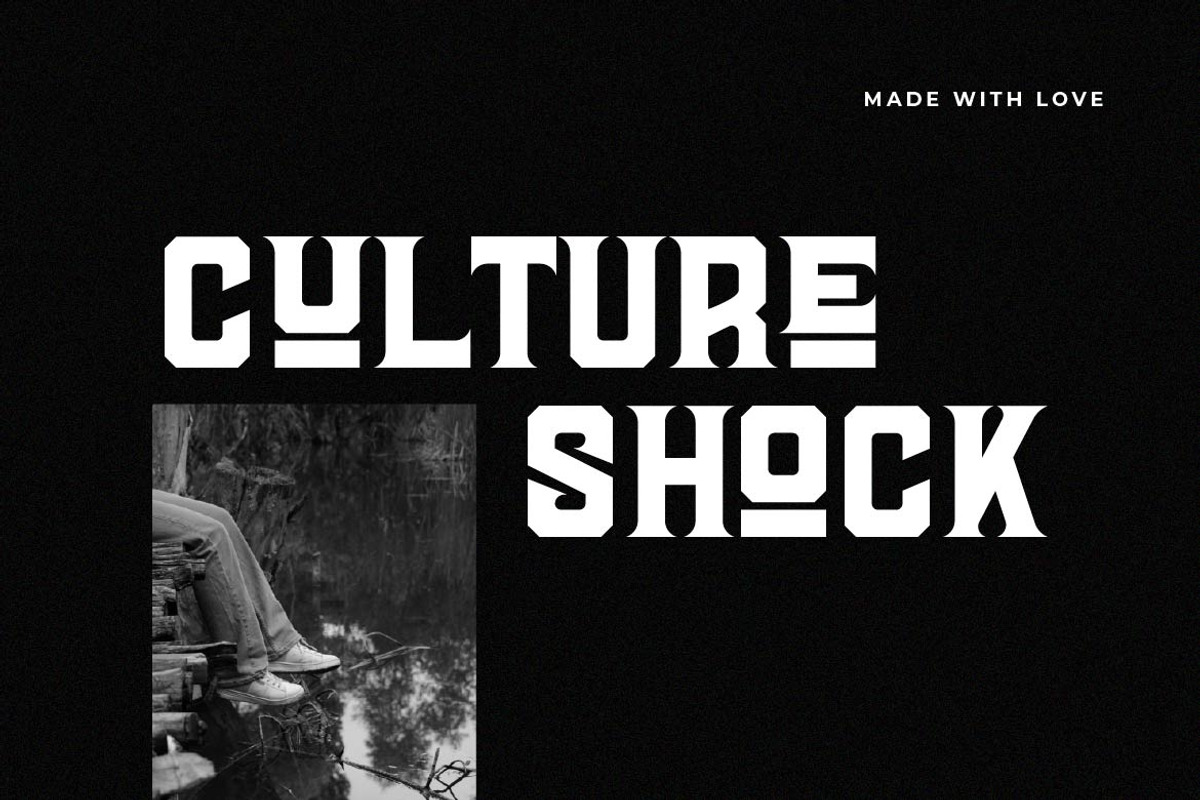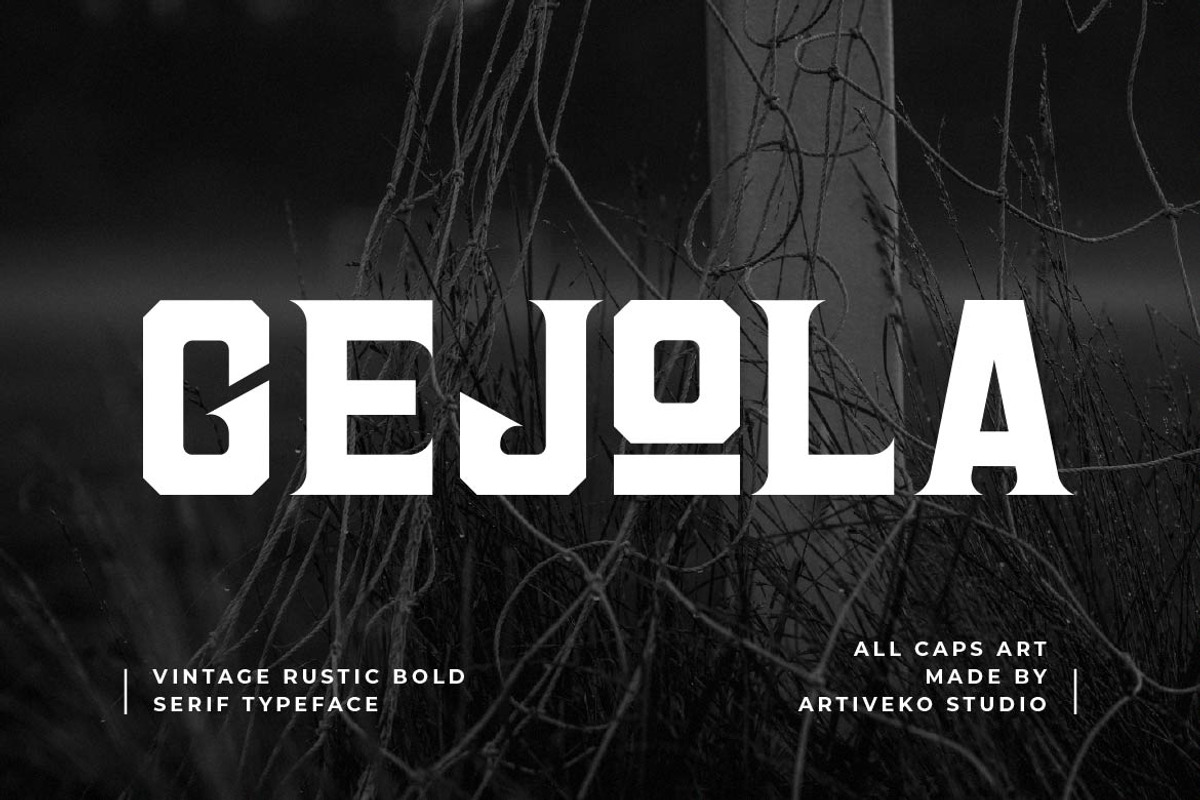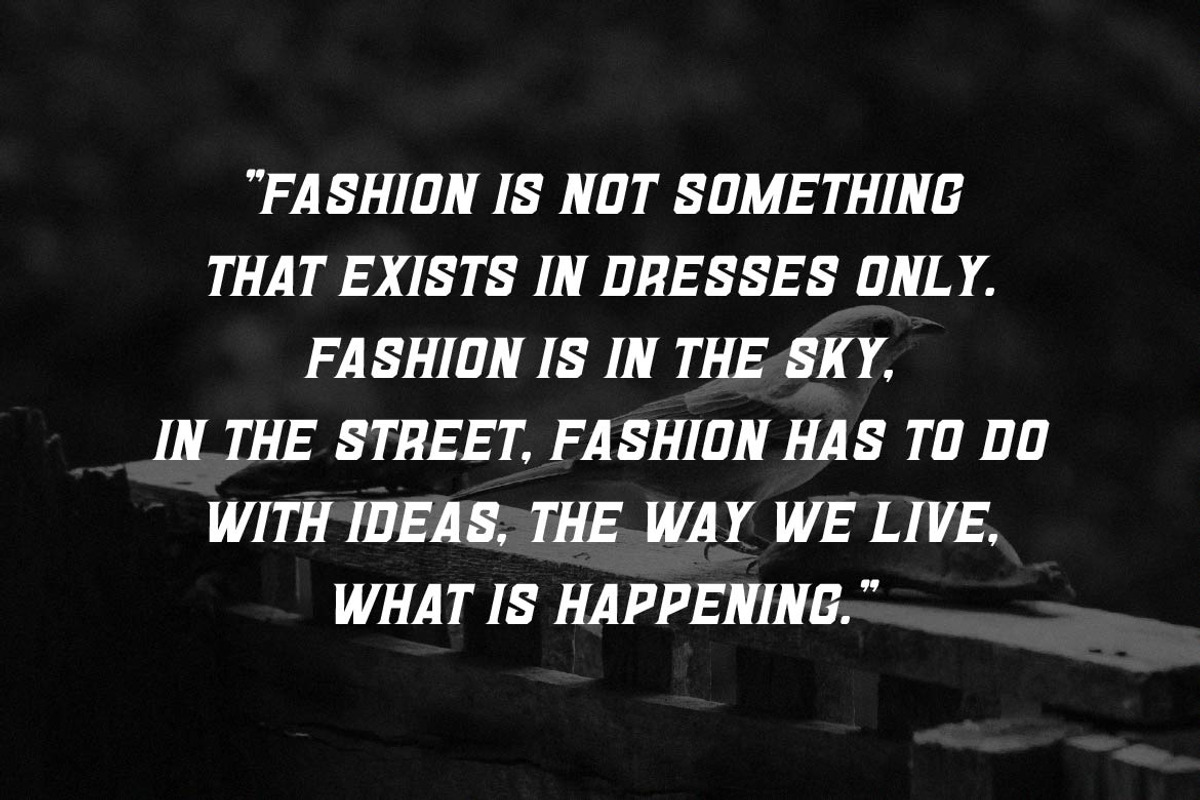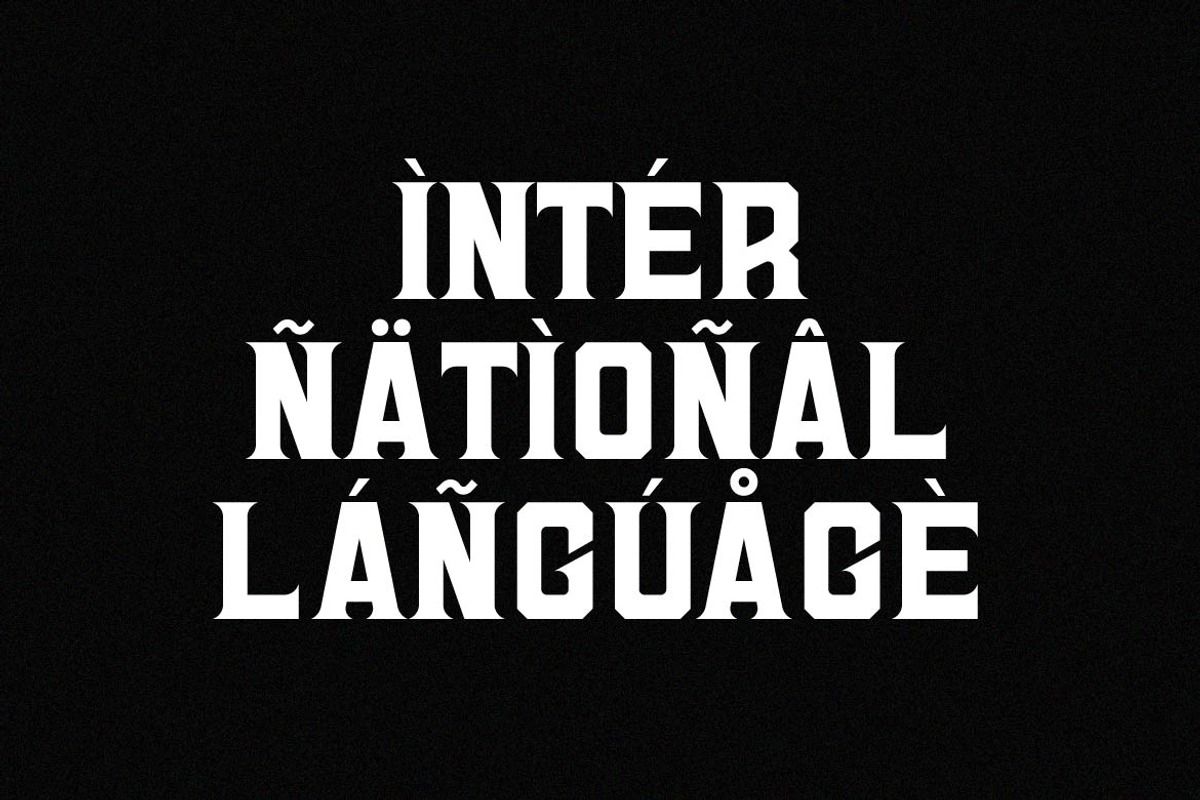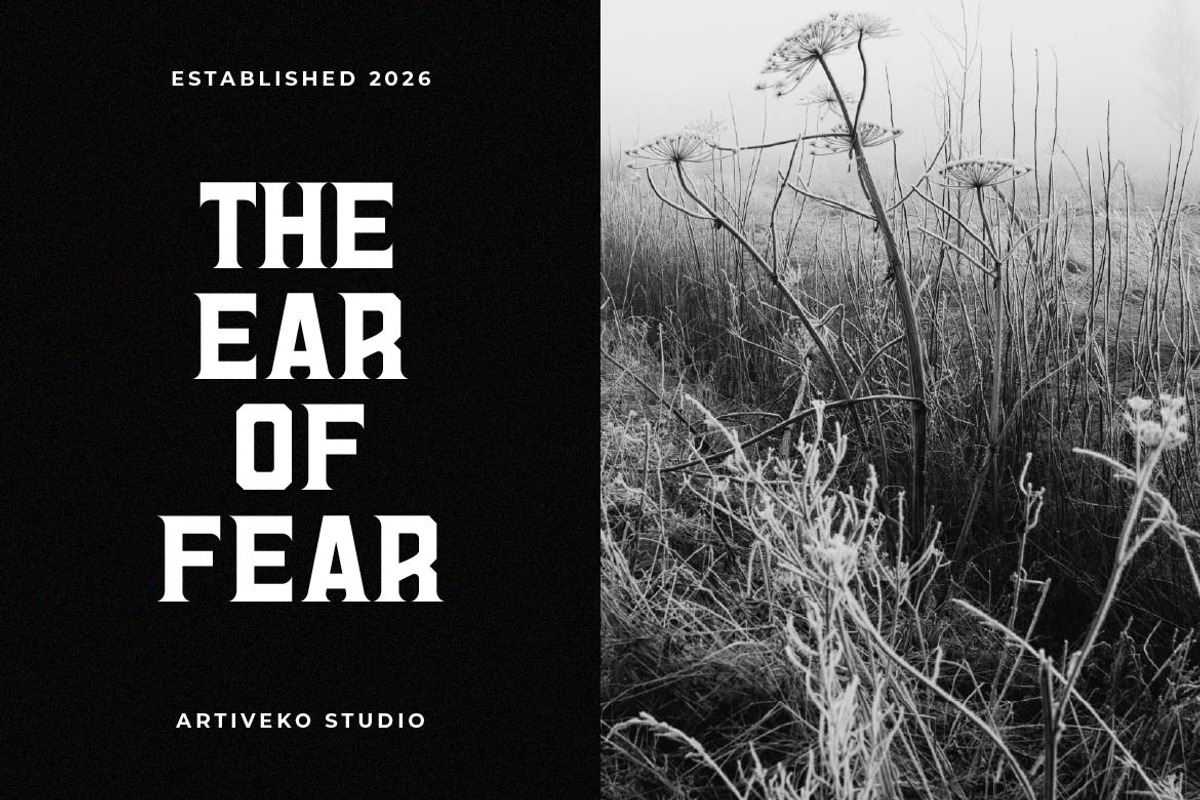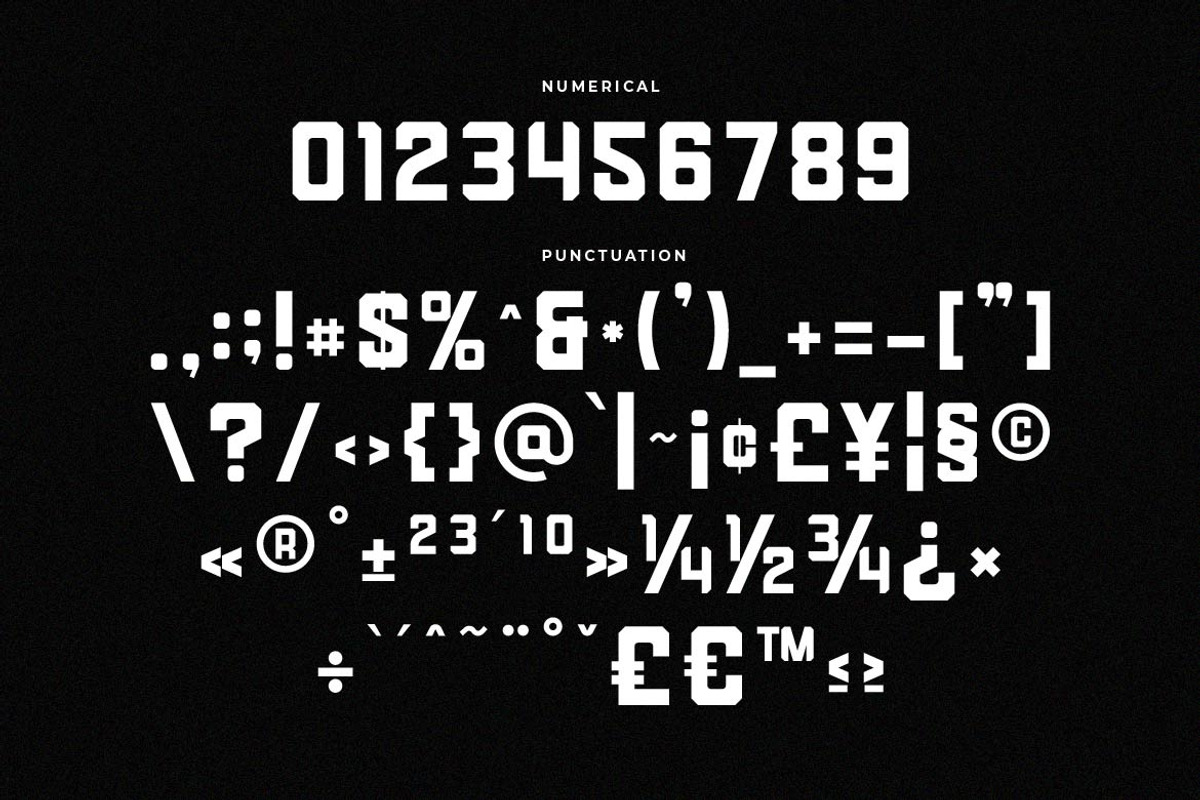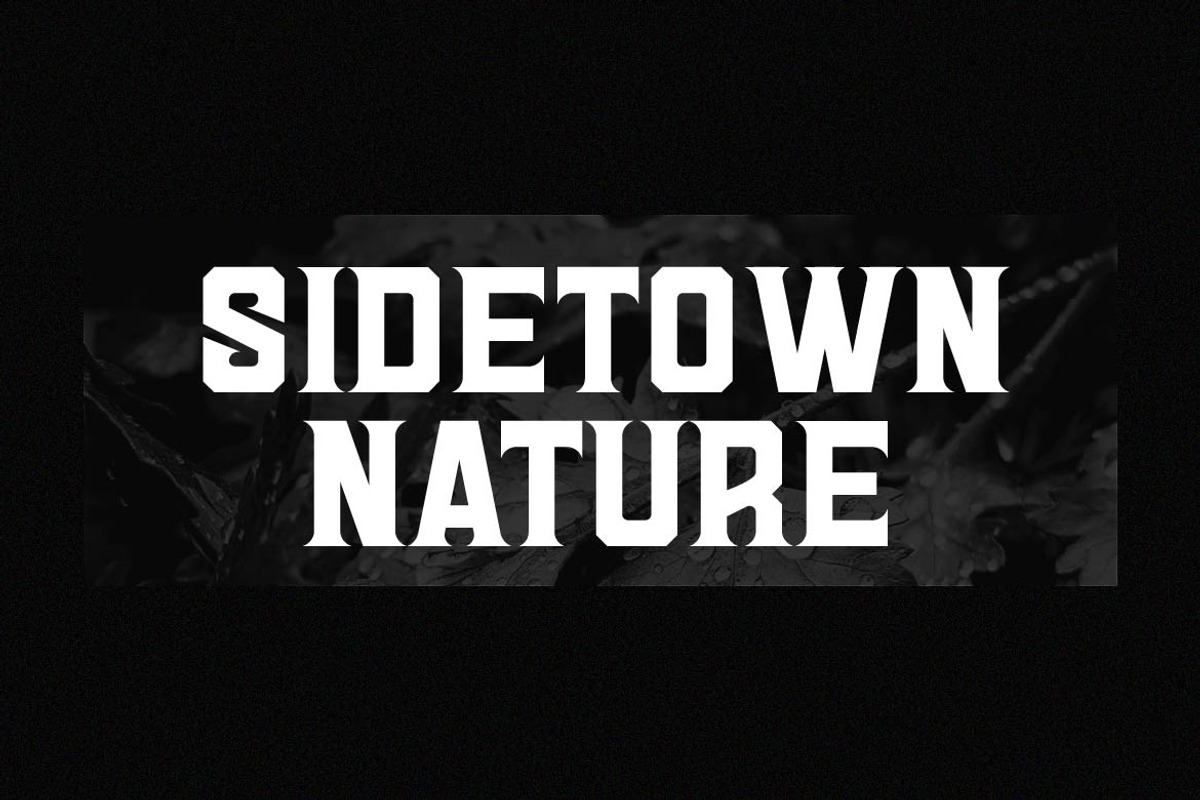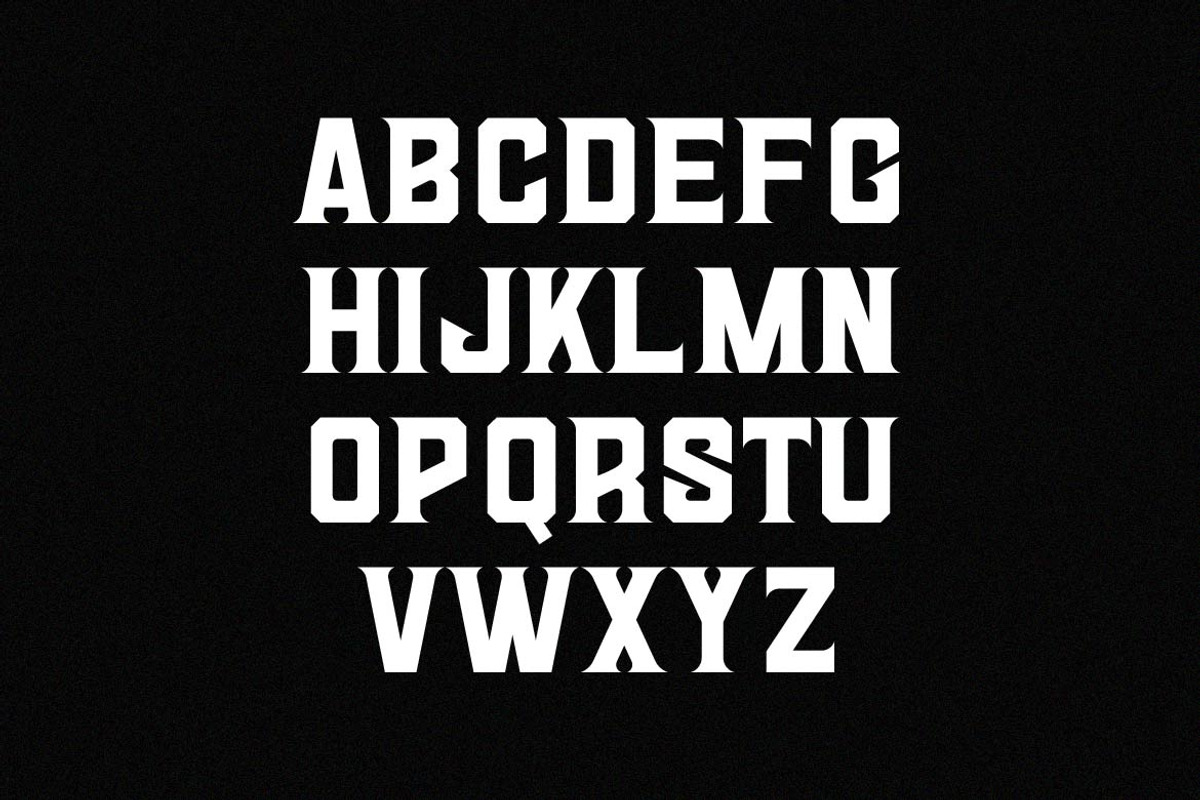
Gejola Bold Vintage Serif Font
Gejola is a powerful vintage serif font designed to deliver bold presence with classic retro charm. Featuring thick strokes, strong serifs, and high contrast details, Gejola brings a confident and nostalgic tone to any design that needs both strength and elegance. This fonts are great for product logo,wedding card logo, clothing brand logo, Vintage design and much more.